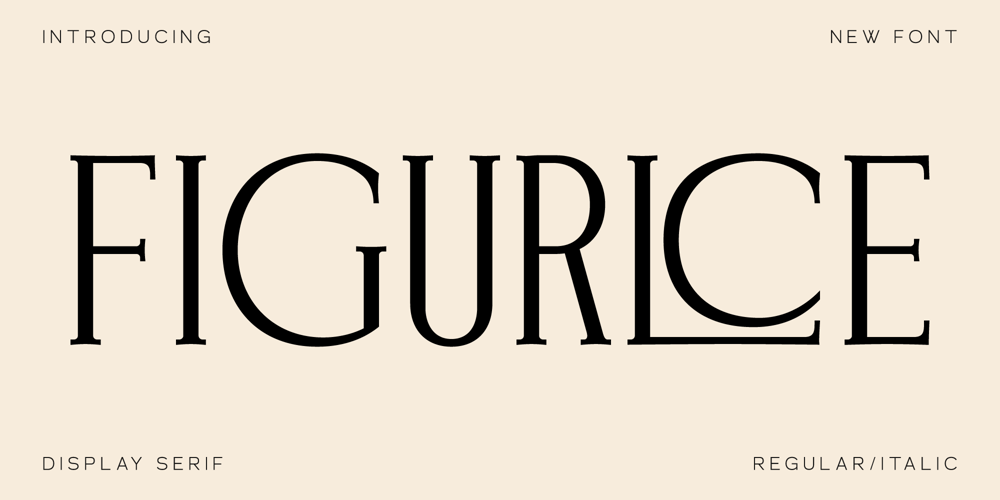
Figurlce Font Family was designed by Heru Utama Putra and published by Letterena Studios. Figurlce contains 2 styles and family package options. Figurlce Typeface is a modern and classic serif typeface that has its own unique style and modern look. This typeface is perfect for an elegant & luxurious logo, book or movie title design, fashion brand, magazine, clothes, lettering, quotes, and so much more.